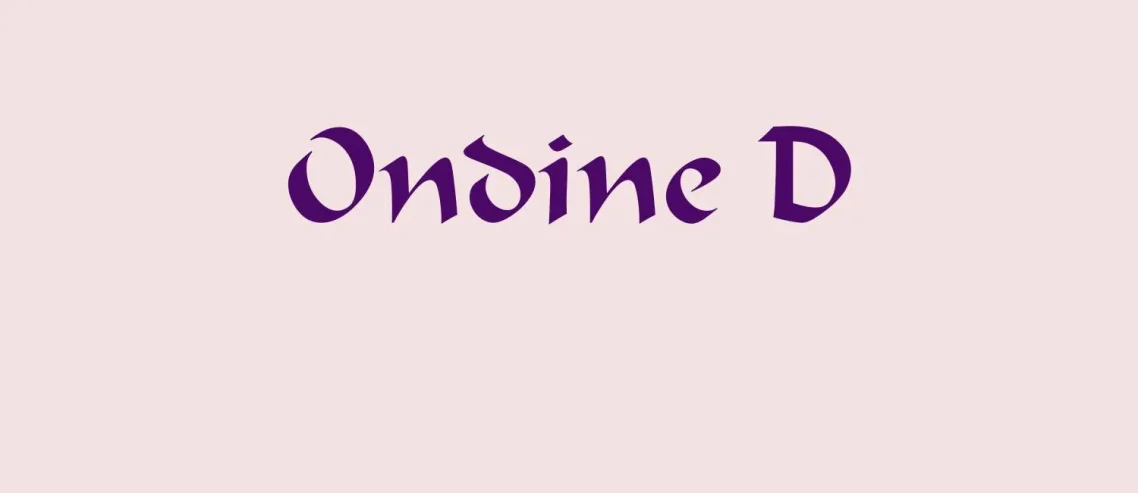
Ondine D Font Free Download
AquaType Studios introduces the Ondine D Font, a graceful and elegant script typeface that exudes sophistication. The flowing lines and intricate details of each letter make it a perfect choice for projects requiring a touch of refinement. Whether used for wedding invitations, upscale branding, or any design where an air of elegance is desired, Ondine …